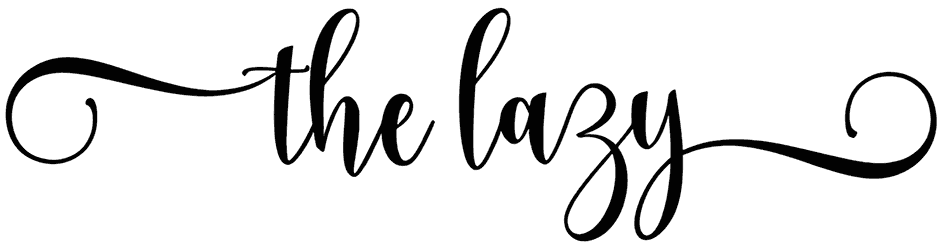
The Lazy Font
Divining an artistic and romantic font to wrap a wide range of decorative, creative designs is not a distant dream. Thanks to the Resource Boy website, many calligraphy fonts with their curved body like The Lazy stand eagerly to act gorgeously in highlighting your typography. So, get a move on and combine any card design, posters, invitations, and others with its sweet tone.